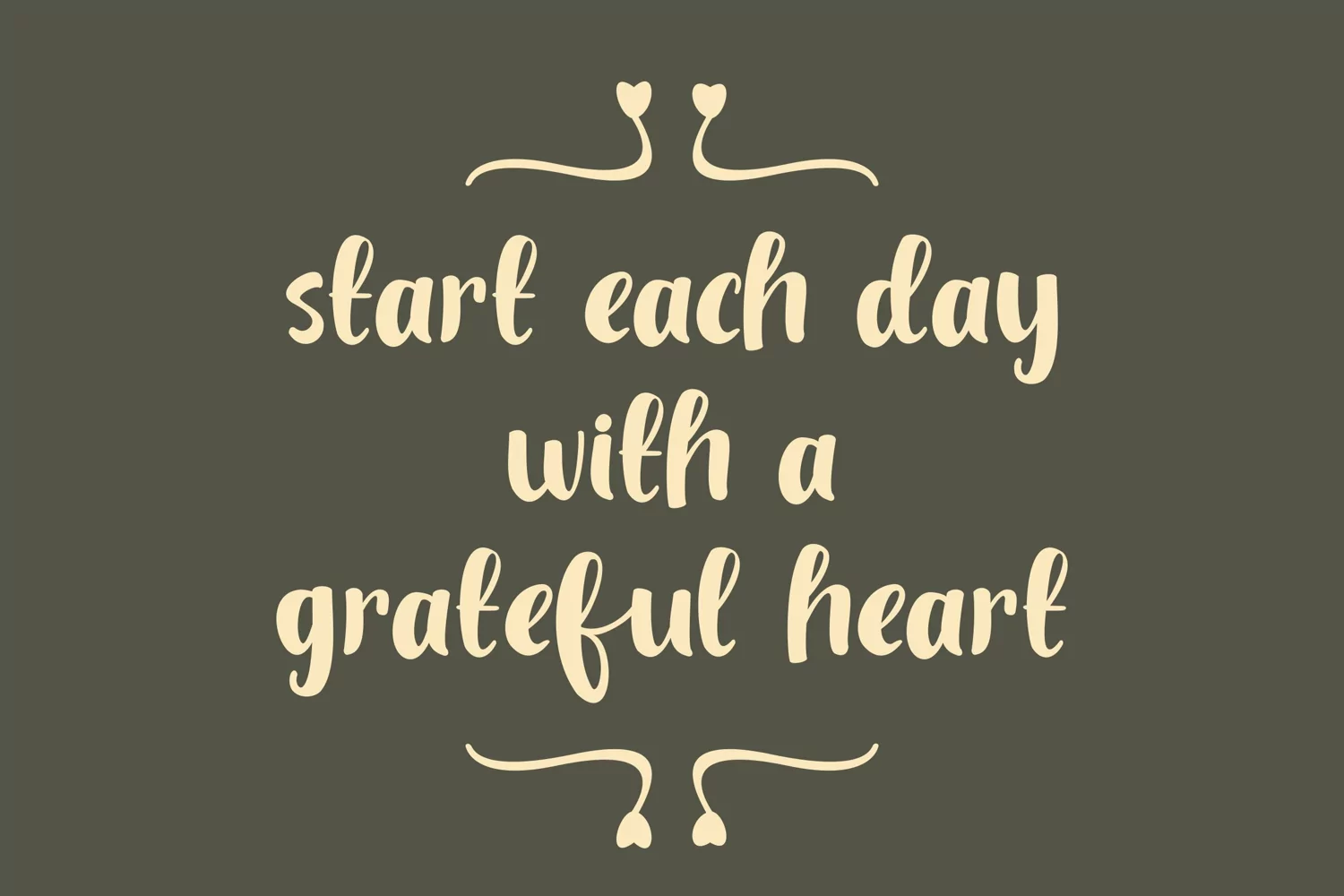
Dream Road is Handwritten font. It has a elegant, and modern look which can be used for logos, branding, invitations, stationary, wedding designs, social media posts, and every other design.